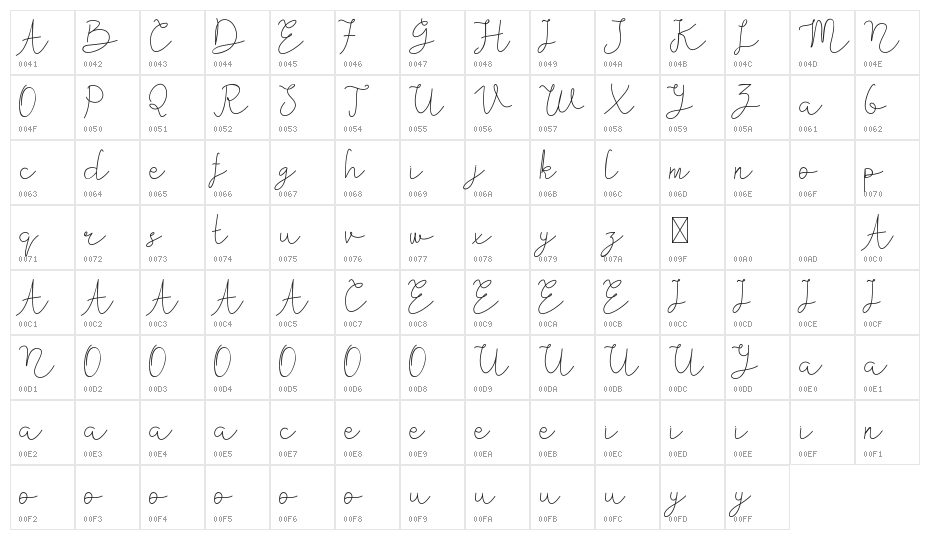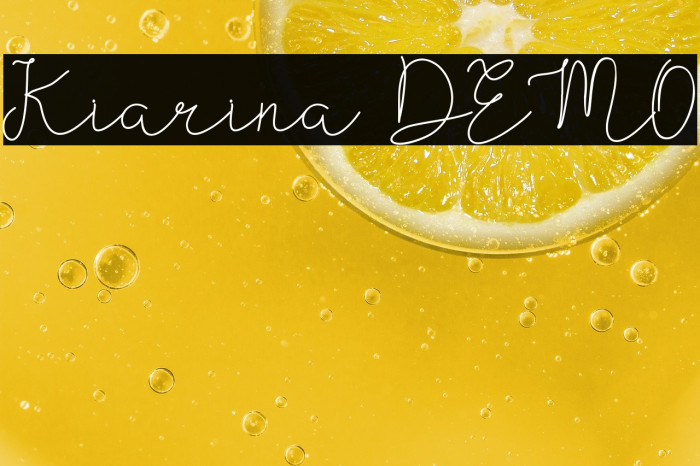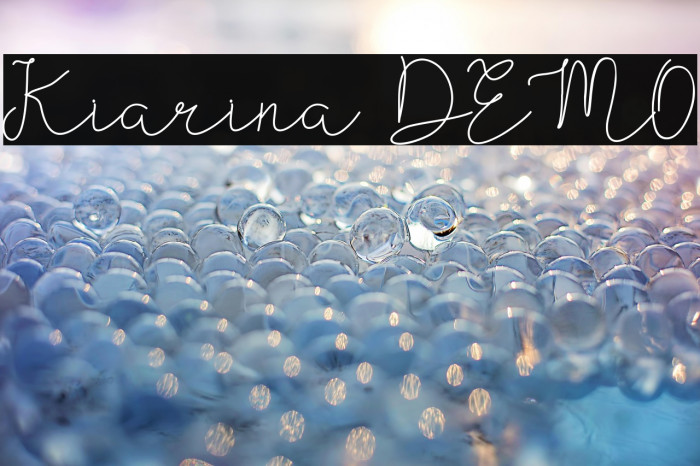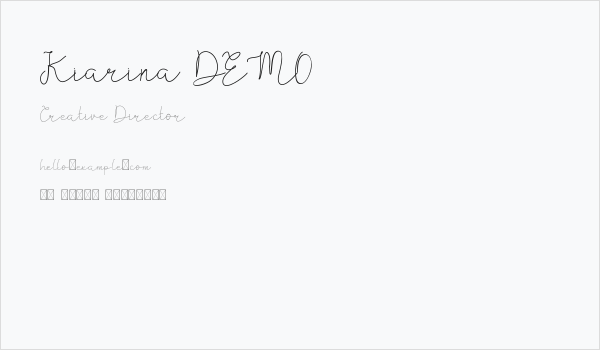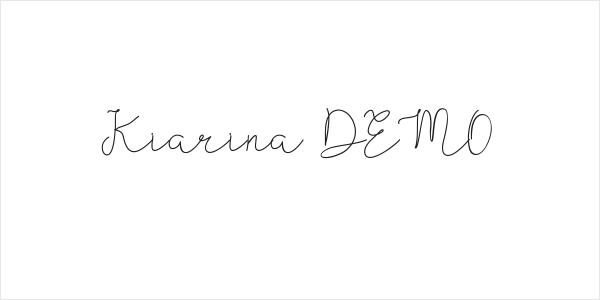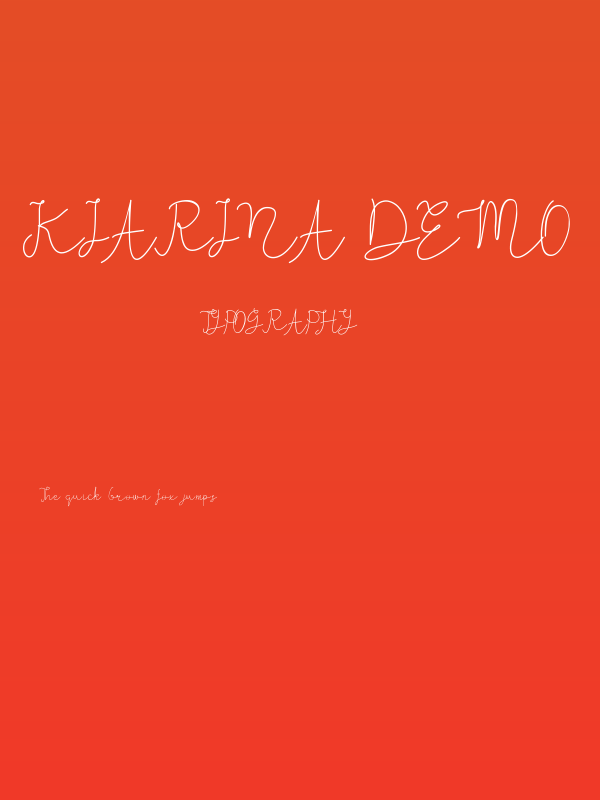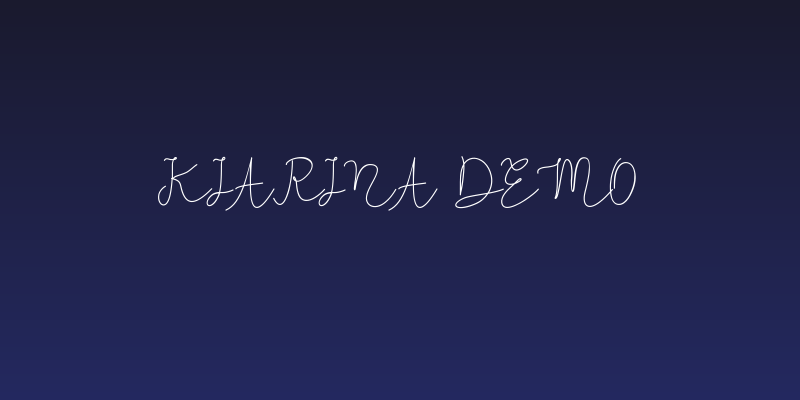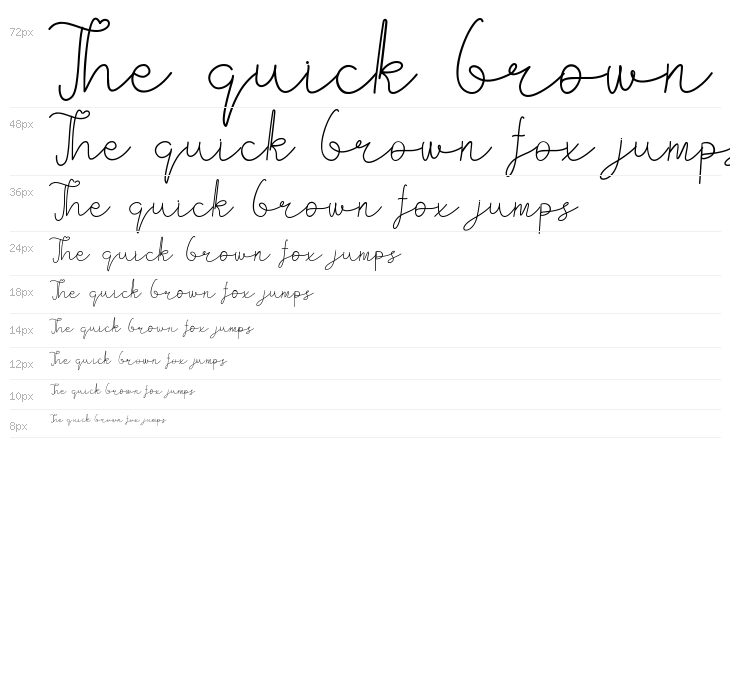
Kiarina DEMO Font
Kiarina DEMO Description
This font features a delicate and flowing script style, characterized by its elegant and continuous strokes. The letters are interconnected, giving it a handwritten appearance that is both sophisticated and approachable. The uppercase letters maintain a consistent height, while the lowercase letters exhibit a graceful loop and curve, enhancing the overall fluidity of the design. The font's thin lines and gentle curves create a sense of lightness and elegance, making it suitable for projects that require a personal touch. The consistent stroke width throughout the characters ensures readability while maintaining an artistic flair.
| Overall Style | Elegant, Handwritten |
| Proposed Projects | Ideal for wedding invitations, greeting cards, personal branding, and elegant packaging designs. |